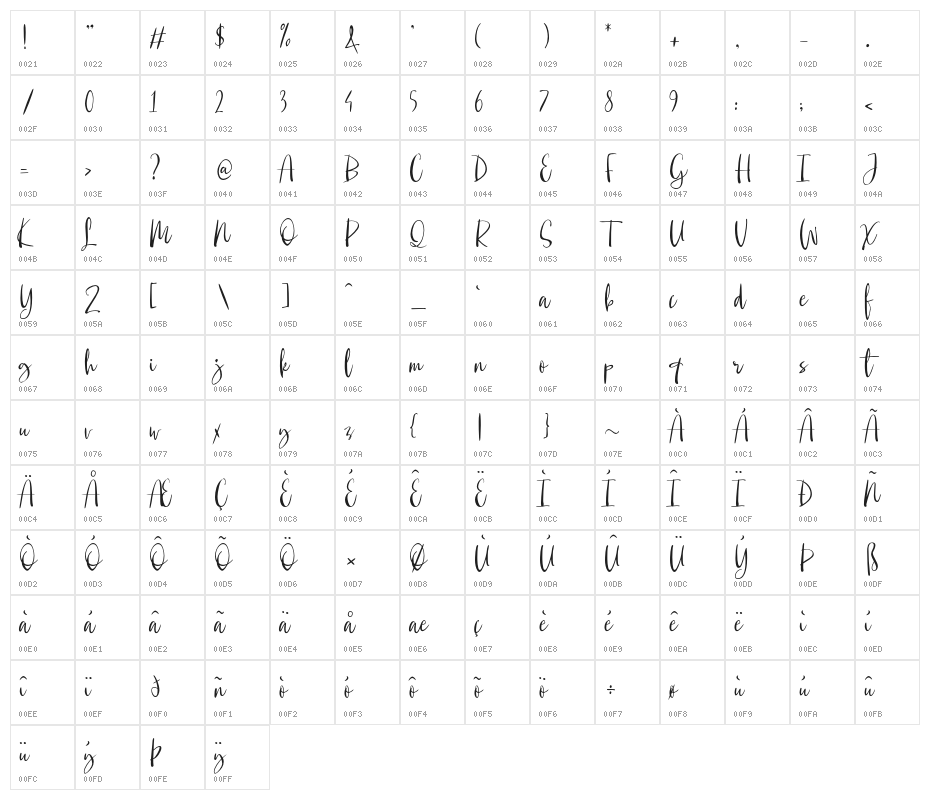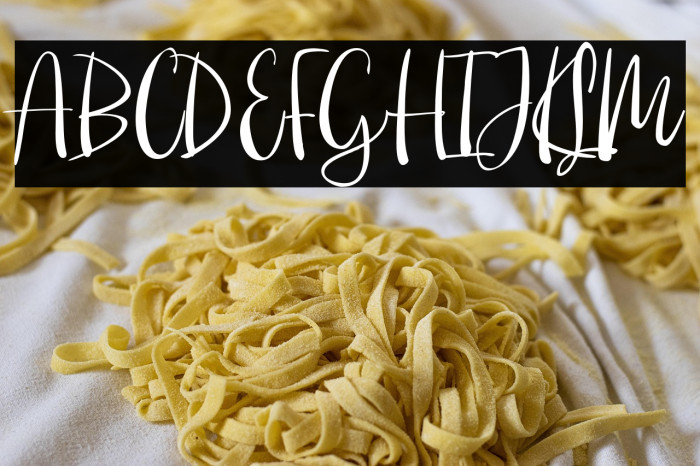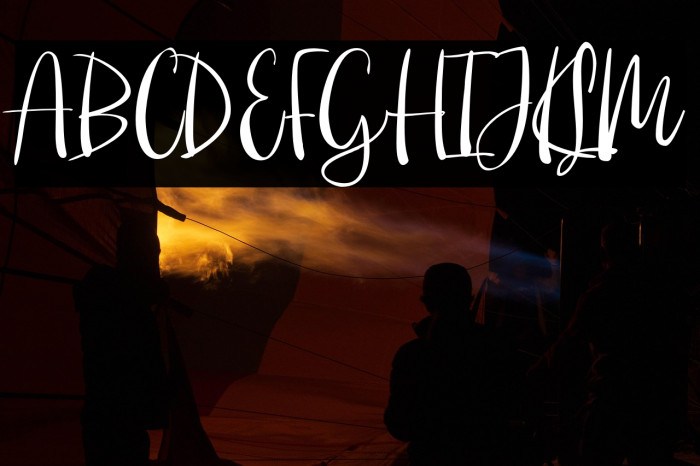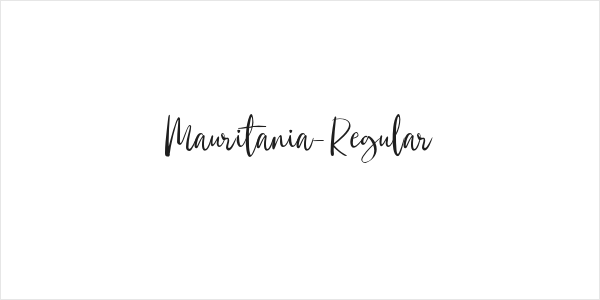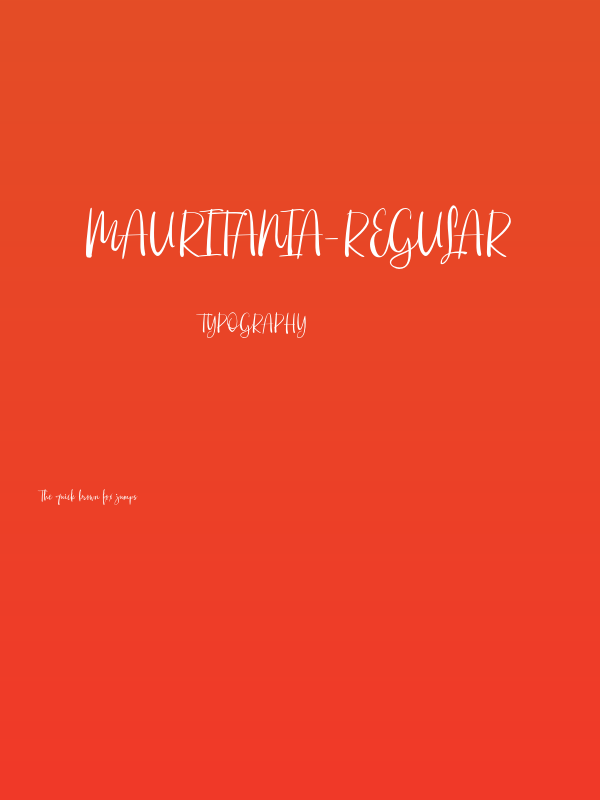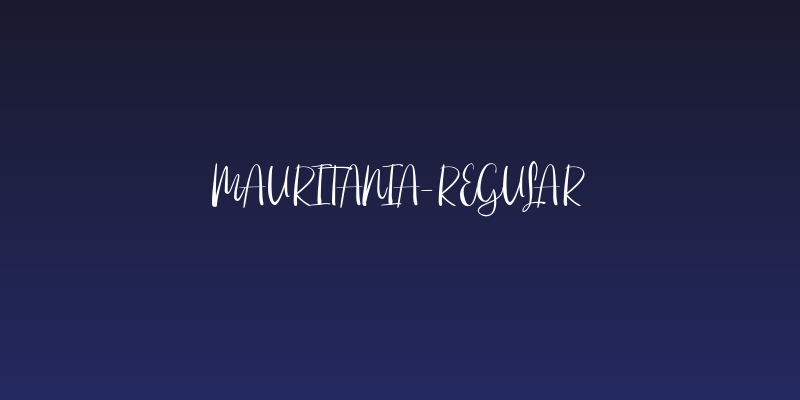
Mauritania-Regular Font
Mauritania-Regular Description
This font features a lively and expressive handwritten style with a modern twist. The uppercase letters are tall and slightly narrow, with a playful, flowing quality that gives them a sense of movement. The lowercase letters are more compact, maintaining the same fluidity and charm. The numbers are consistent with the overall style, offering a cohesive look. Special characters are creatively integrated, adding to the font's versatility. The strokes vary in thickness, providing a dynamic contrast that enhances readability while maintaining an artistic flair.